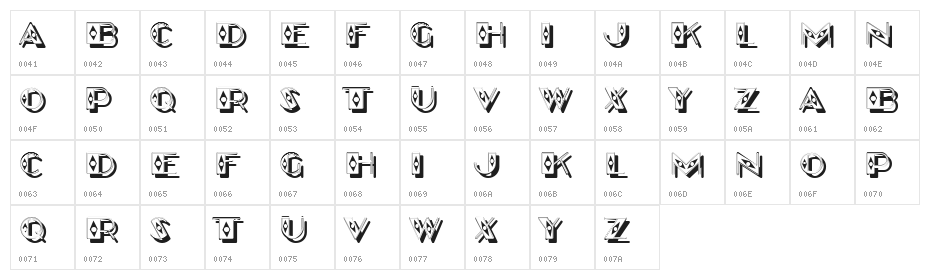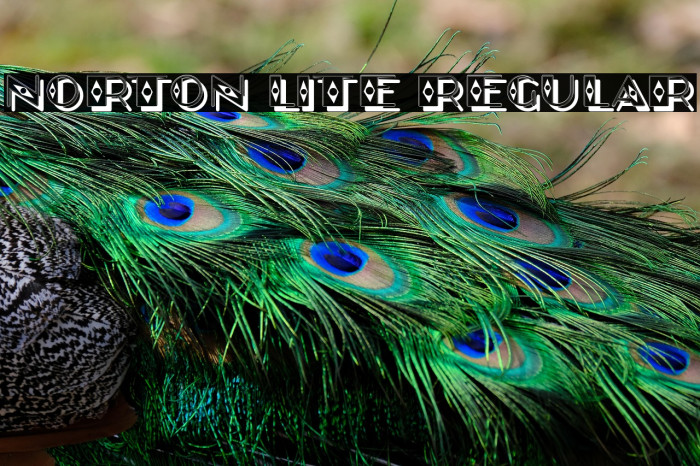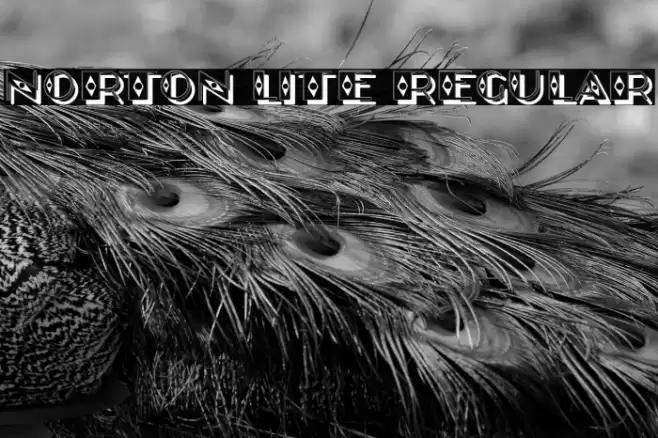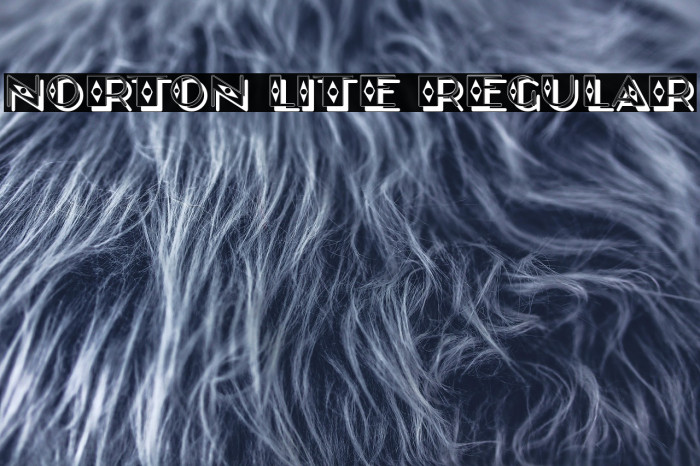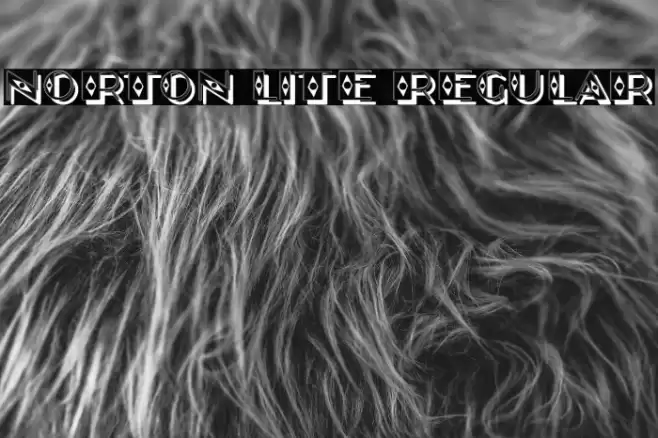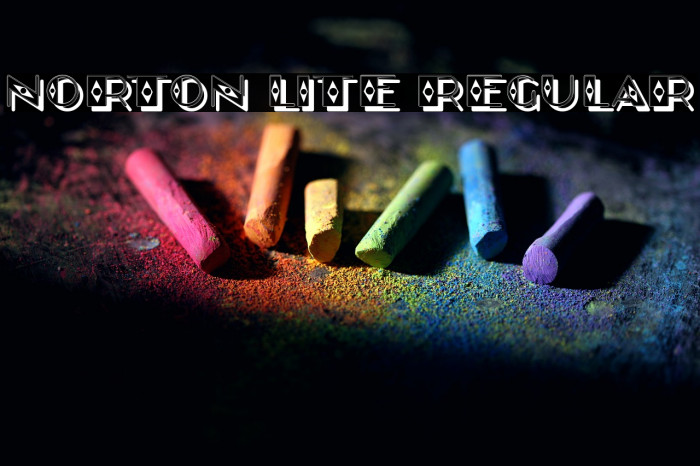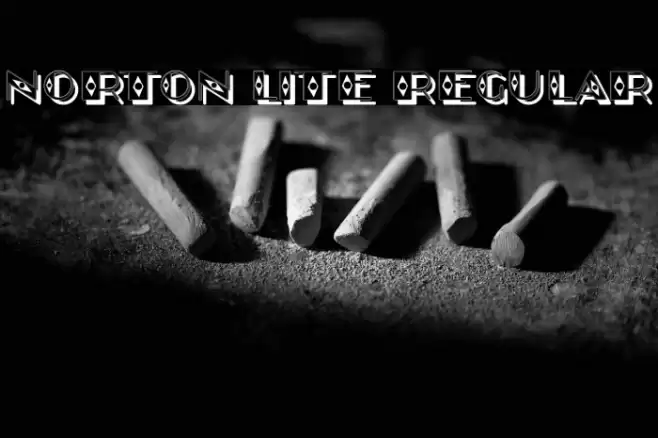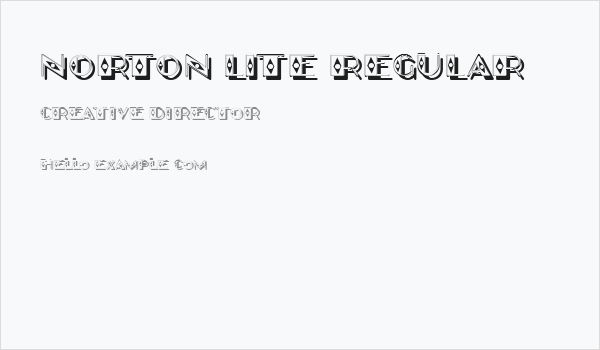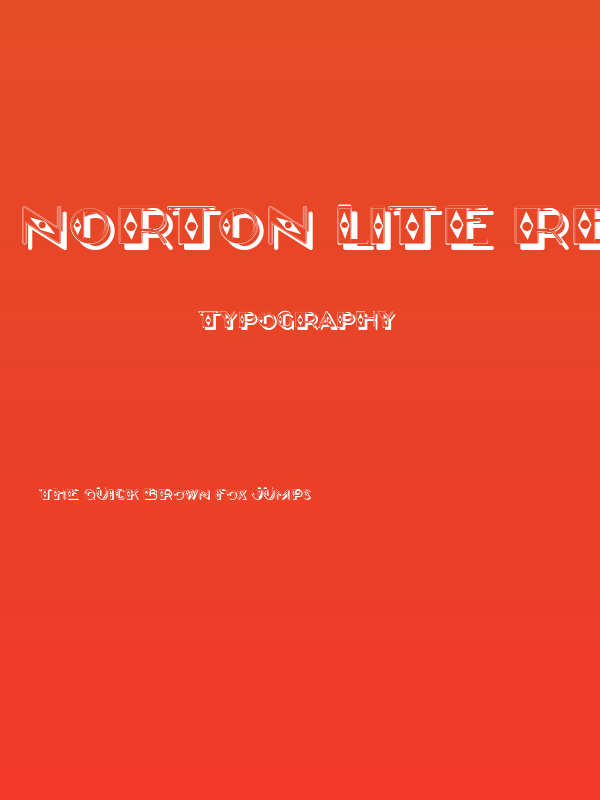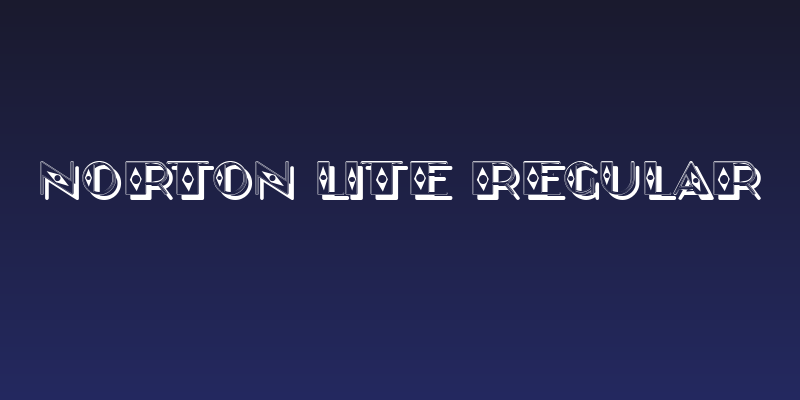
Norton Lite Regular Font
Norton Lite Regular Description
This font features a bold and decorative style with a unique geometric flair. Each character is designed with a diamond-shaped cutout in the center, adding a distinctive and artistic touch. The letters are outlined with a shadow effect, giving them a three-dimensional appearance. The overall design is eye-catching and modern, making it suitable for projects that require a strong visual impact. The uppercase letters are consistent in height and width, providing a uniform look across the alphabet. The font's playful yet structured design makes it versatile for various creative applications.
Proposed ProjectsIdeal for poster designs, branding, logos, and event invitations where a striking and modern aesthetic is desired.